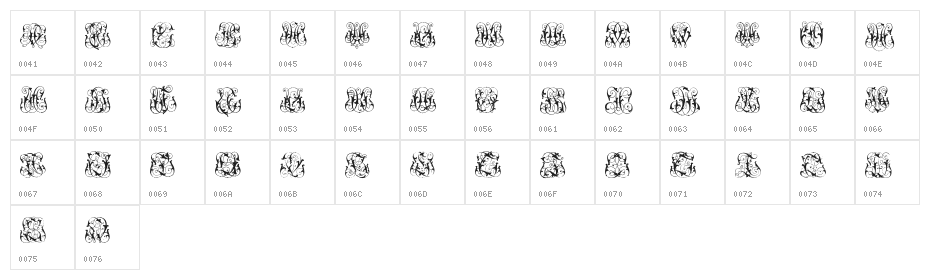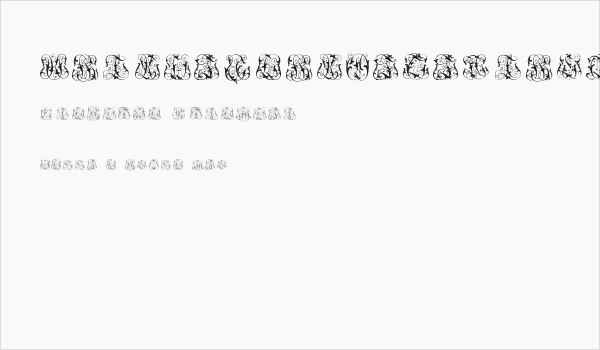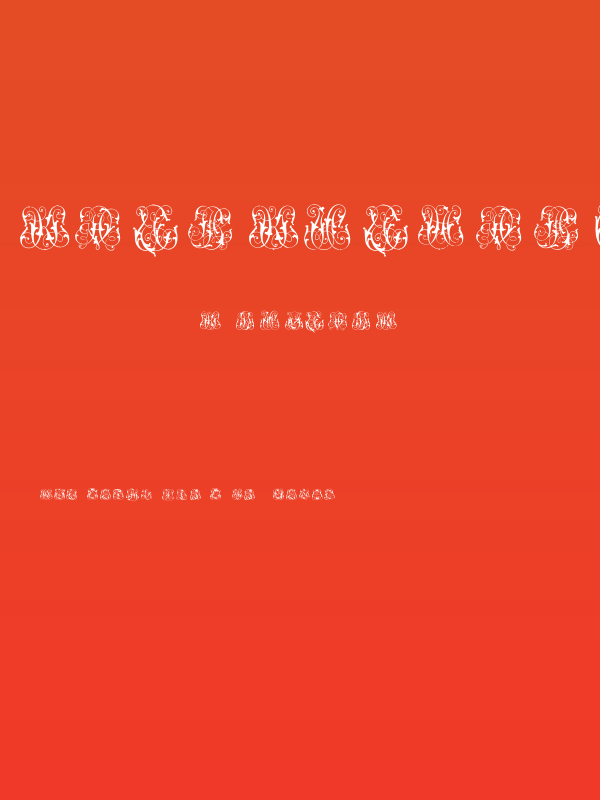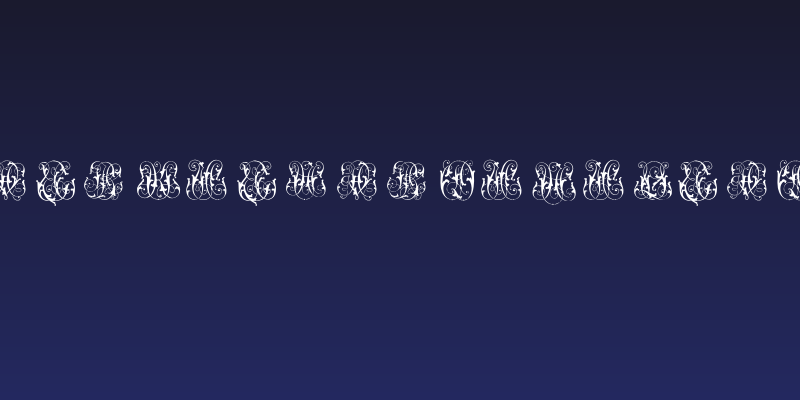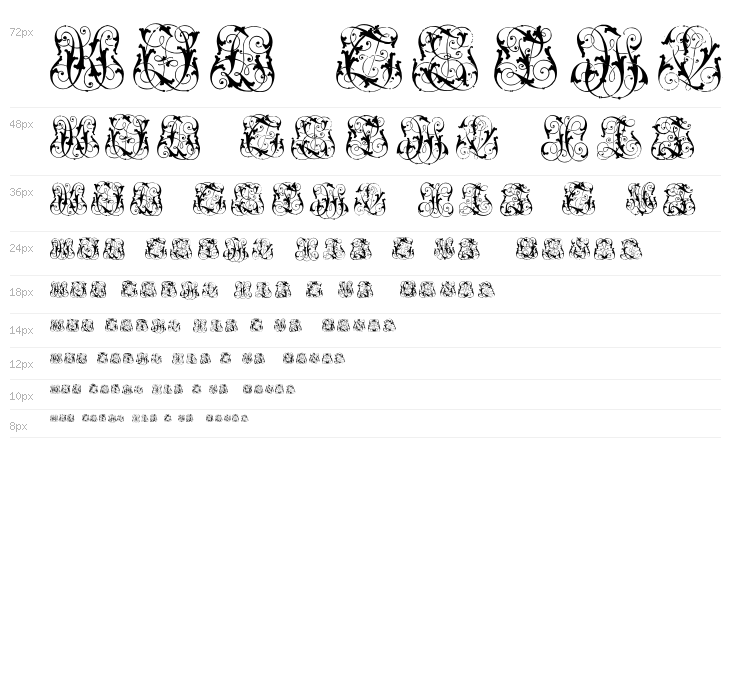
HardtoReadMonograms Font
| Kategorien | Gothic |
| Gesamtstil | Vintage |
| Anwendungsfall | Logos, Invitations, Decorative Monograms |
| Vorgeschlagene Projekte | Ideal for wedding invitations, luxury branding, decorative monograms, and artistic projects requiring a touch of elegance. |